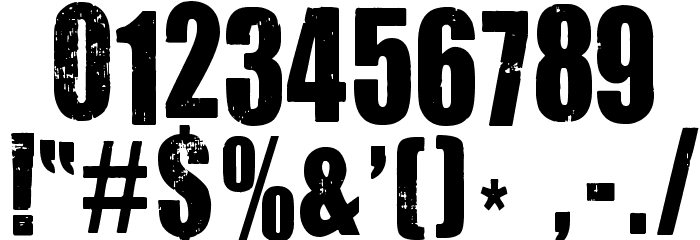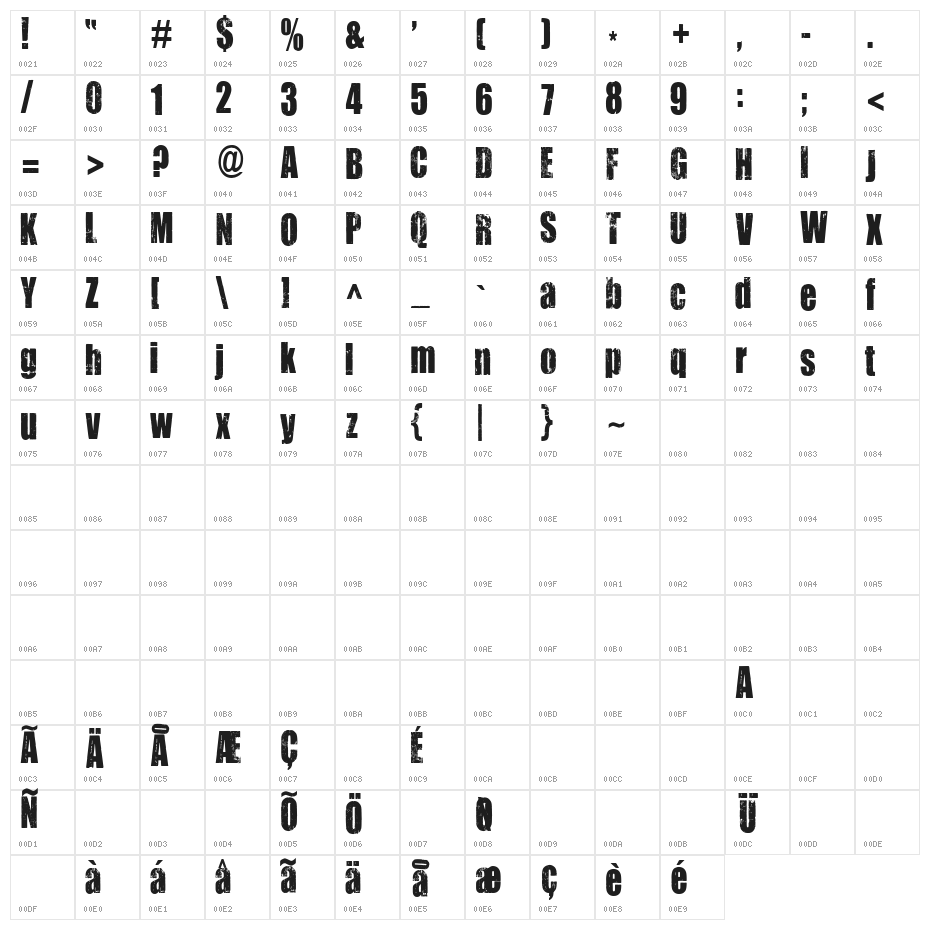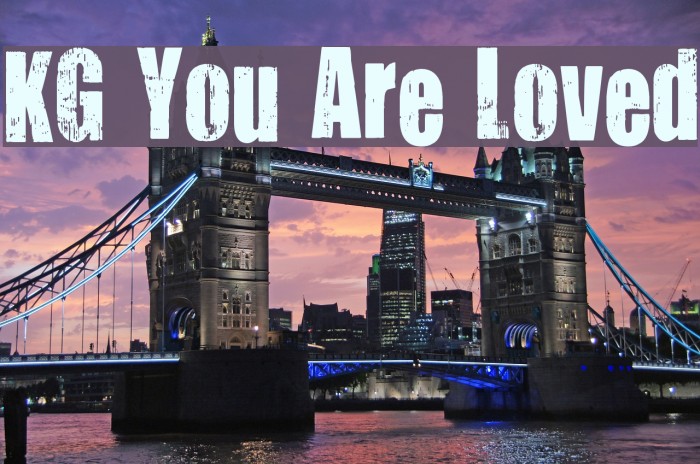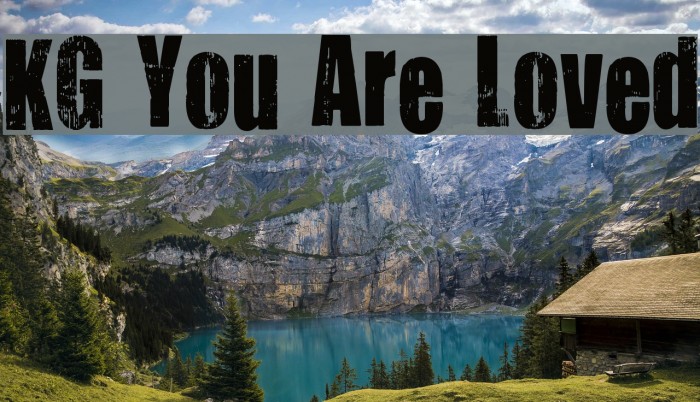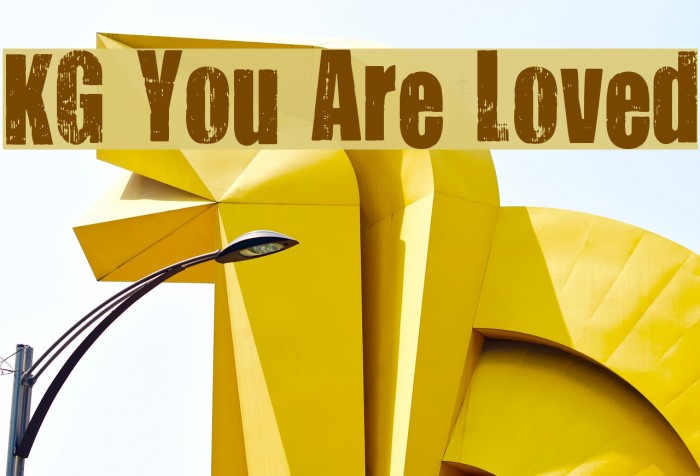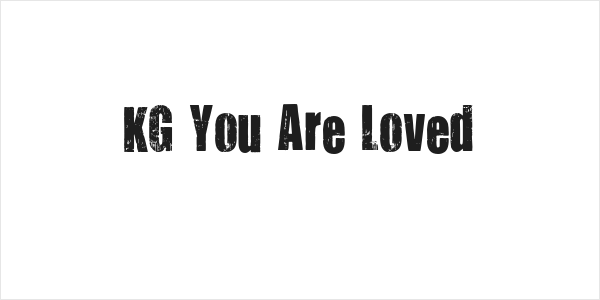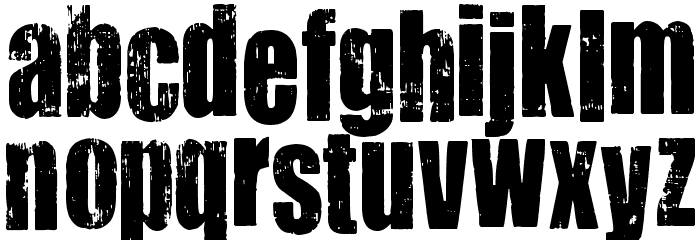
KG You Are Loved Font
KG You Are Loved Description
This font features a bold and distressed style, characterized by its heavy weight and textured appearance. The letters are uppercase and lowercase with a consistent boldness, giving them a strong presence. The distressed texture adds a rugged, vintage feel, making it ideal for projects that require a touch of edginess or a retro vibe. The numbers and special characters maintain the same bold and textured style, ensuring consistency across all elements. This font is perfect for creating impactful headlines, posters, and designs that need to stand out with a bold statement.
| Use Case | Headlines, Posters, Logos |
| Proposed Projects | Ideal for posters, album covers, vintage-themed designs, and bold headlines. |